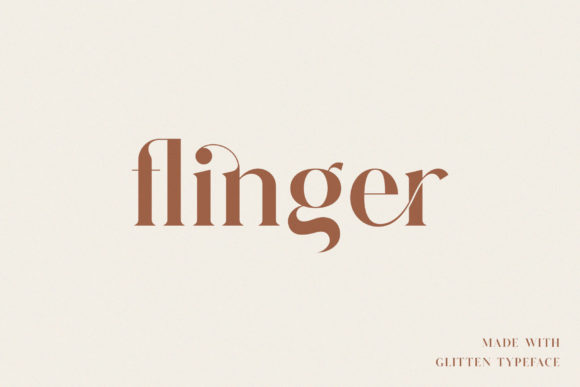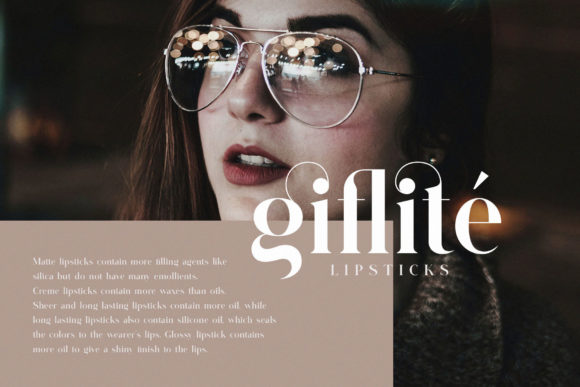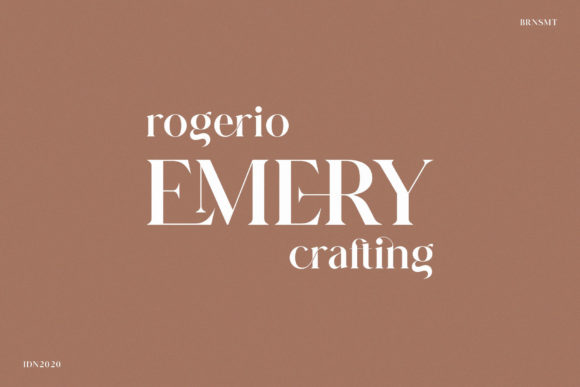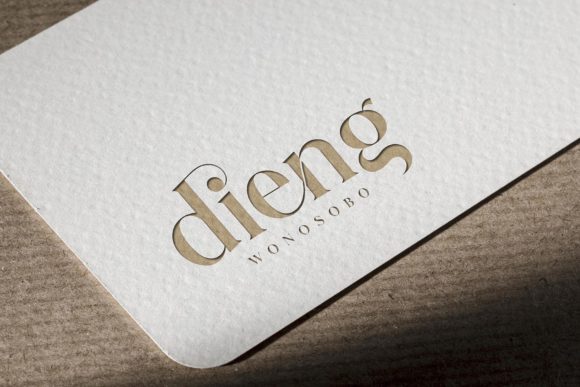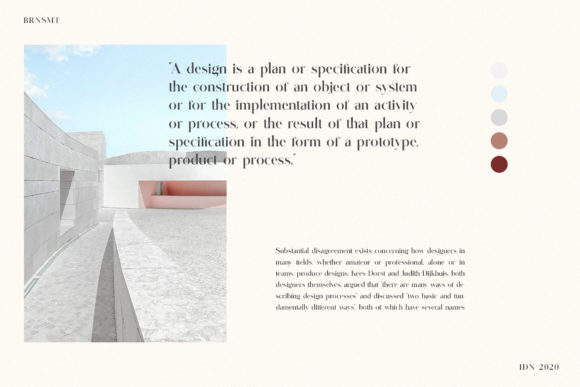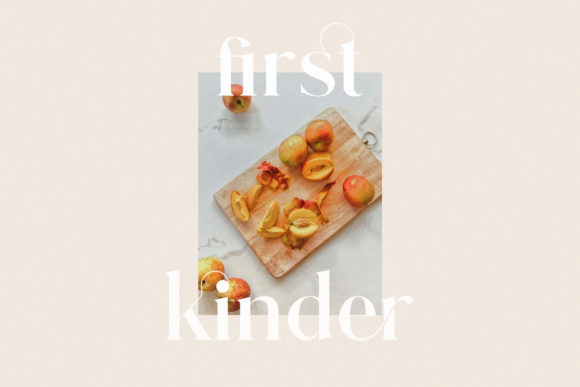
Discover the Elegance of Glitten Font: Elevate Your Designs with Versatility
Glitten is a bold and elegant serif font that has captured the hearts of designers and crafters alike. Its incredibly versatile style makes it an ideal choice for creating spectacular designs that exude sophistication and luxury. In this article, we’ll dive into the world of Glitten Font, exploring its features, benefits, and uses, as well as provide tips on how to make the most of this stunning font.
The Allure of Glitten Font
Glitten Font is a masterclass in elegant design. Its bold, yet refined serif style commands attention while maintaining a sense of poise and sophistication. The font’s versatility lies in its ability to adapt to various design contexts, from luxurious branding and high-end advertising to creative crafting and digital art. Whether you’re looking to create a statement piece or add a touch of elegance to your project, Glitten Font is the perfect choice.
Key Features of Glitten Font
• Bold and Elegant: Glitten Font boasts a bold, yet elegant serif style that adds a touch of sophistication to any design.
• Versatile: Its versatility makes it suitable for a wide range of design applications, from branding and advertising to crafting and digital art.
• High-Quality: Glitten Font is designed with high-quality craftsmanship, ensuring crisp and clear rendering even at large sizes.
• Easy to Read: Despite its bold style, Glitten Font remains easy to read, making it perfect for body text and headlines.
Benefits of Using Glitten Font
So, why choose Glitten Font for your next design project? Here are just a few benefits of using this stunning font:
• Elevate Your Brand: Add a touch of luxury and sophistication to your brand with Glitten Font’s elegant style.
• Stand Out: With its bold and eye-catching design, Glitten Font helps your project stand out from the crowd.
• Flexibility: Use Glitten Font across various design applications, from print to digital, without compromising on style or quality.
• Time-Saving: With Glitten Font, you can create stunning designs quickly and efficiently, saving you time and effort.
Tips for Using Glitten Font
To make the most of Glitten Font, here are some expert tips:
• Pair with Simplicity: Balance Glitten Font’s bold style with simple, clean design elements to avoid overwhelming the senses.
• Experiment with Colors: Try pairing Glitten Font with different colors to create unique and eye-catching effects.
• Use for Headlines: Glitten Font is perfect for headlines and titles, adding a touch of elegance and sophistication to your design.
• Don’t Forget Contrast: Ensure sufficient contrast between Glitten Font and your background to maintain readability and visual impact.
Need inspiration for your next design project? Here are some ideas to get you started:
• Luxury Branding: Use Glitten Font to create luxurious branding materials, such as business cards, letterheads, and packaging.
• Wedding Designs: Add a touch of elegance to your wedding designs, including invitations, programs, and decorations.
• Digital Art: Experiment with Glitten Font in your digital art projects, such as illustrations, graphics, and typography.
• Crafting: Use Glitten Font to create beautiful and eye-catching crafting projects, such as signs, banners, and DIY decorations.
Glitten Font is a bold and elegant serif font that offers a world of creative possibilities. Its versatility, high-quality design, and ease of use make it an ideal choice for designers and crafters looking to elevate their designs. With its wide range of applications and expert tips, Glitten Font is sure to become a staple in your design toolkit. So, fall in love with Glitten Font’s incredibly versatile style and use it to create spectacular designs that leave a lasting impression!